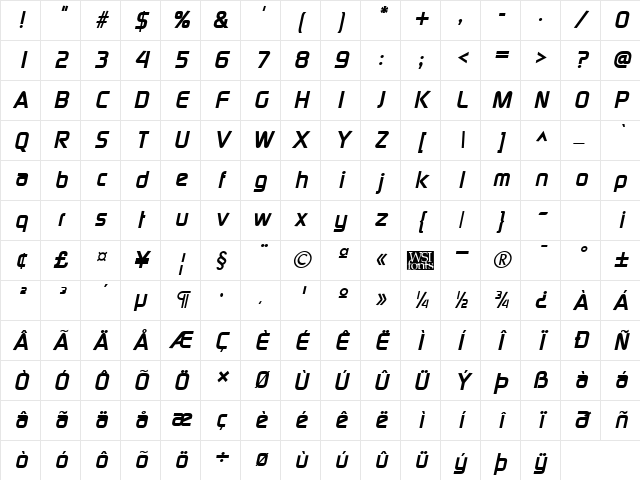
Modaerne Bold Italic
Design Context for Modaerne
Modaerne is a composed and adaptable typeface that performs quietly and consistently across a wide range of design contexts. The slanted form adds forward momentum and visual energy. Its bold stroke weight gives it real presence on the page.
Pro Tip: Use Modaerne for emphasis, pull quotes, and subheadings where its slanted energy can add rhythm to the layout.